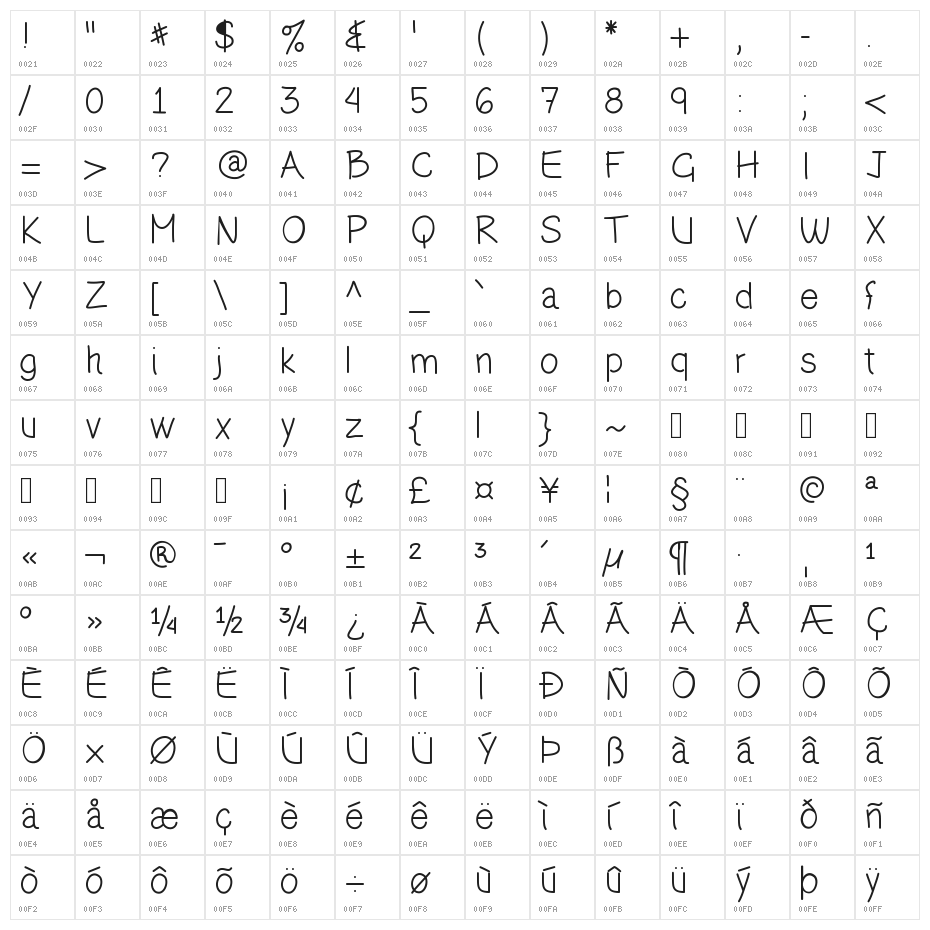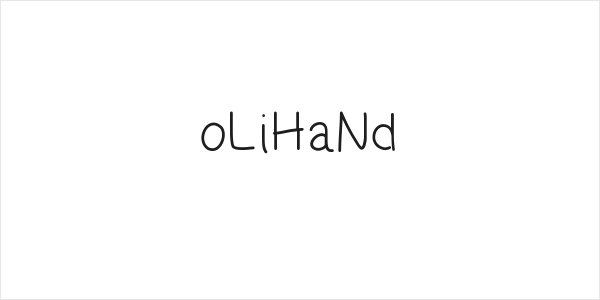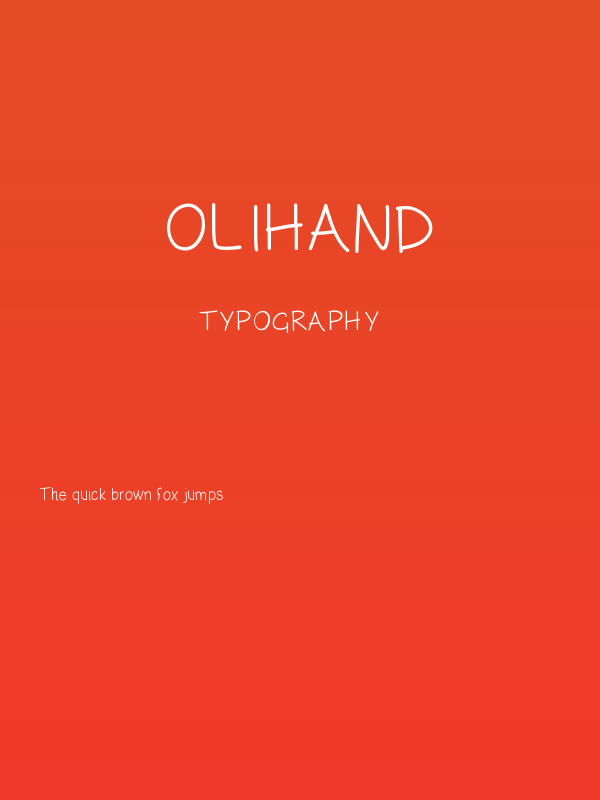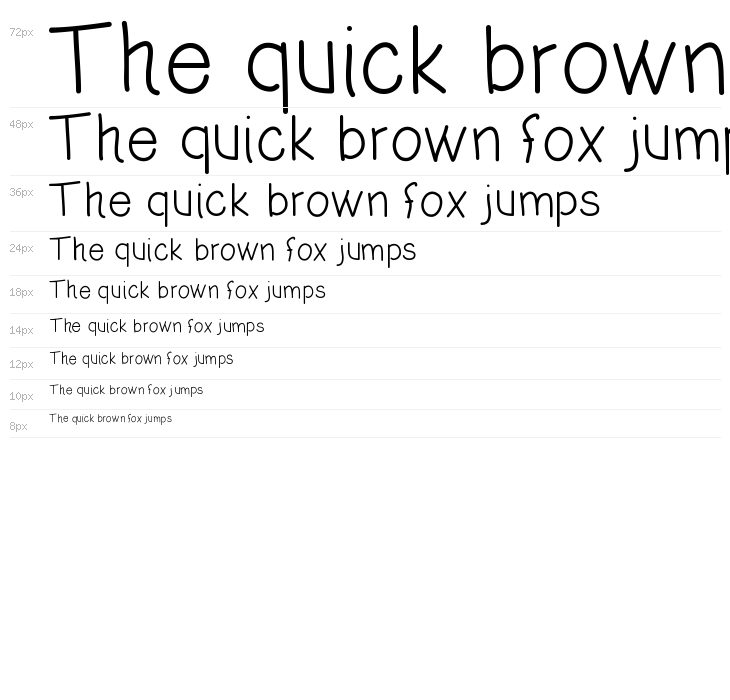
oLiHaNd Font
oLiHaNd Description
This font features a playful and casual handwritten style, characterized by its smooth, rounded edges and slightly irregular letterforms. The uppercase and lowercase letters maintain a consistent flow, giving a sense of movement and energy. The numerals and special characters complement the alphabet with a similar informal aesthetic. The overall appearance is friendly and approachable, making it suitable for projects that require a personal touch. The font's legibility is enhanced by its clear and open shapes, ensuring readability even at smaller sizes.
OLIHAND UPPERCASE
OLIHAND LOWERCASE
OLIHAND OTHER CHARS
| Use Case | Headlines, Informal text, Branding |
| Proposed Projects | Ideal for greeting cards, children's books, casual invitations, and playful branding. |